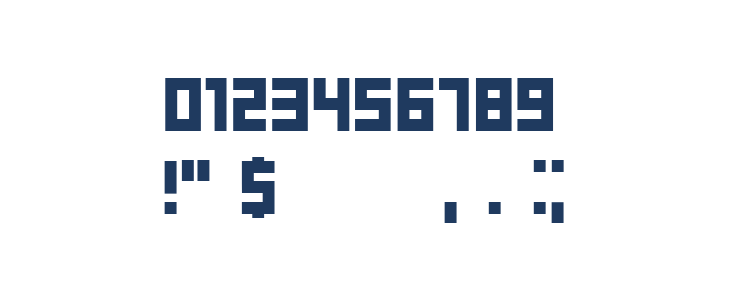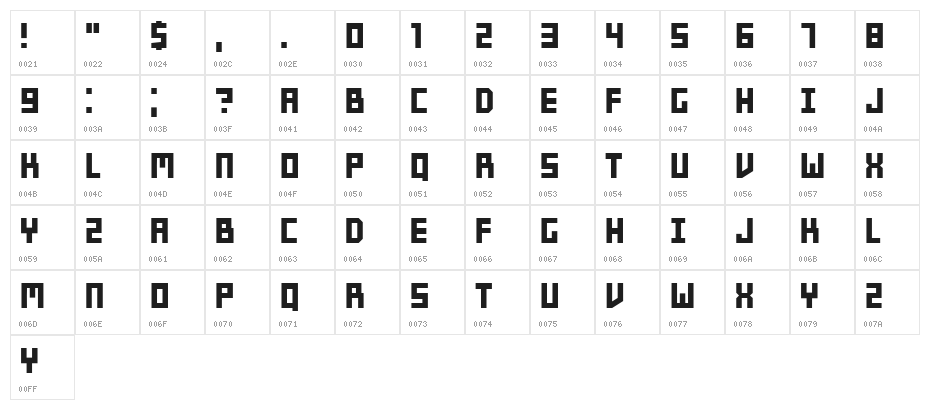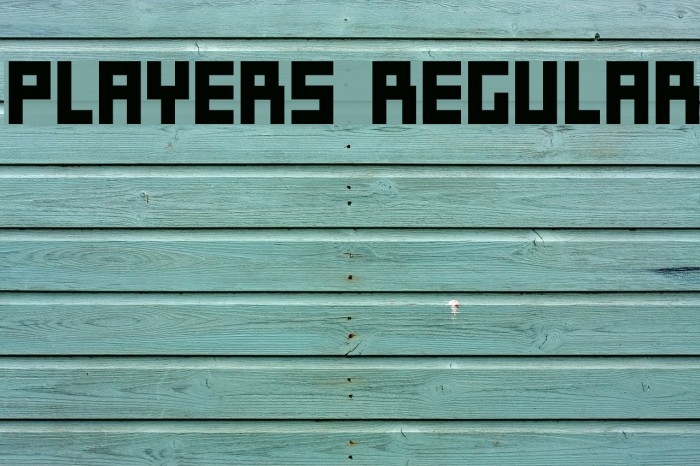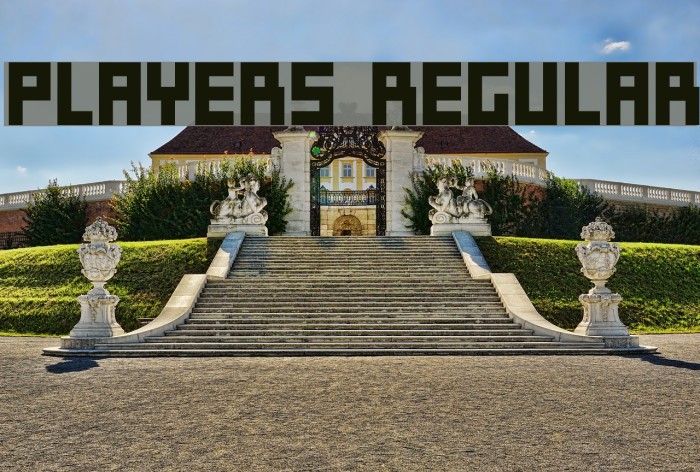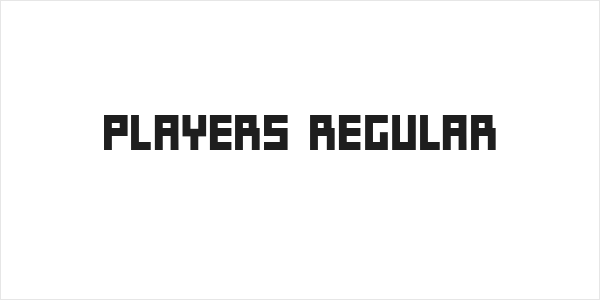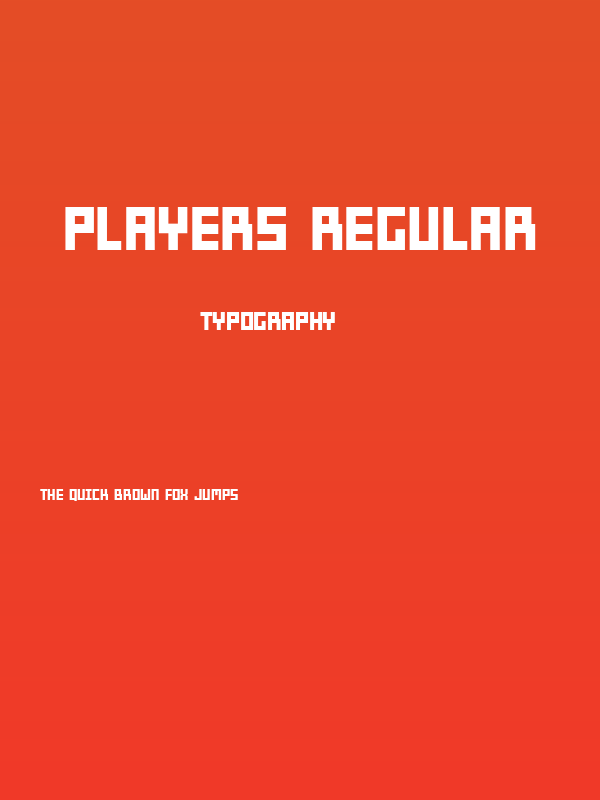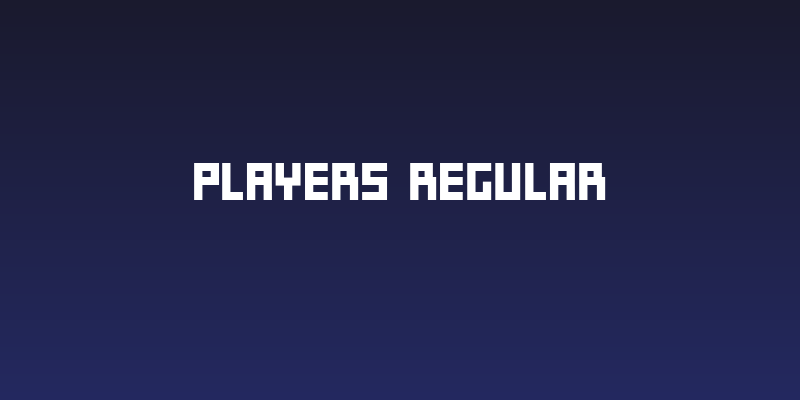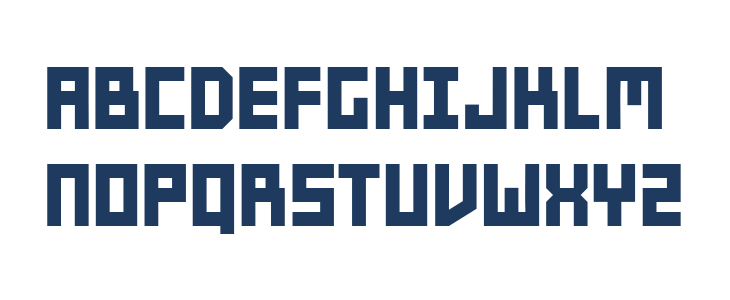
Players Regular Font
Players Regular Description
This font features a bold, geometric style with a strong, blocky appearance. The characters are uniformly structured, with sharp angles and a consistent thickness throughout. The uppercase letters are particularly striking, with a design that emphasizes symmetry and balance. The numerals and special characters maintain the same boldness and geometric precision, making them easily legible. This font's design is reminiscent of digital or pixelated typefaces, often used in retro or tech-themed projects.
| Proposed Projects | Ideal for video game graphics, tech-themed posters, digital art, and retro-style branding. |